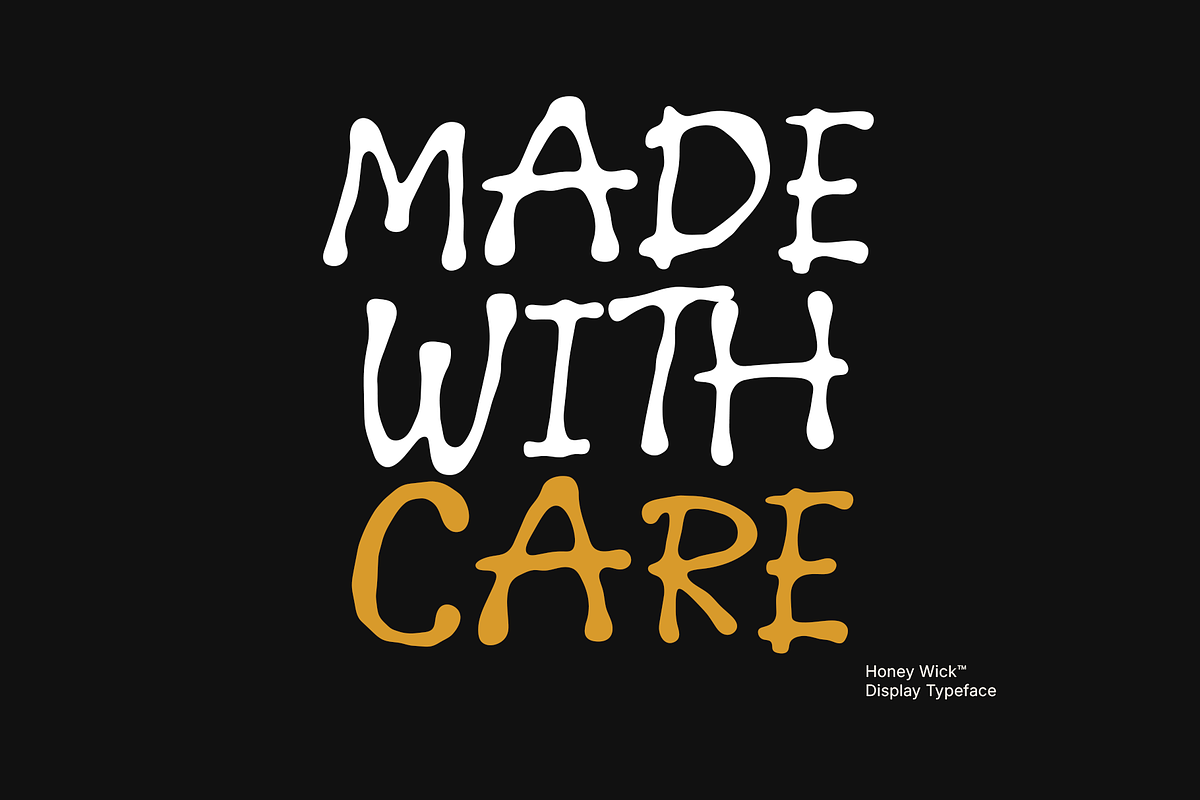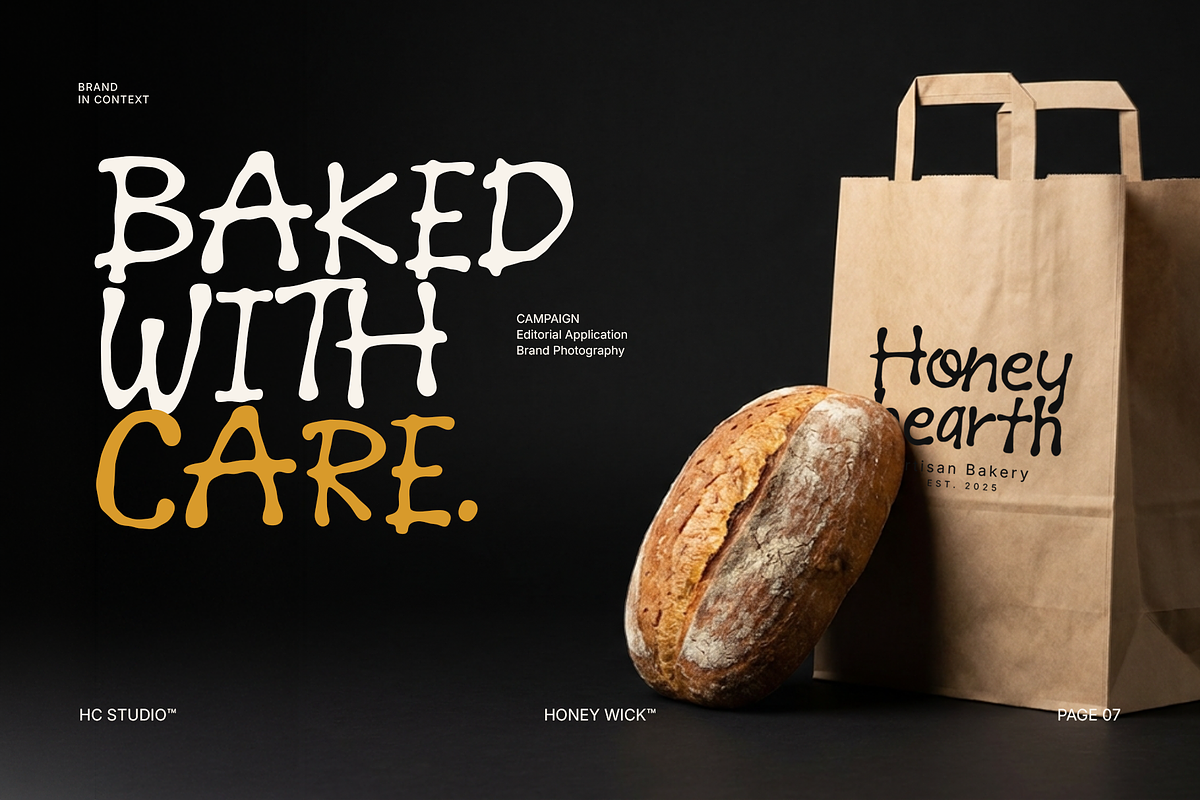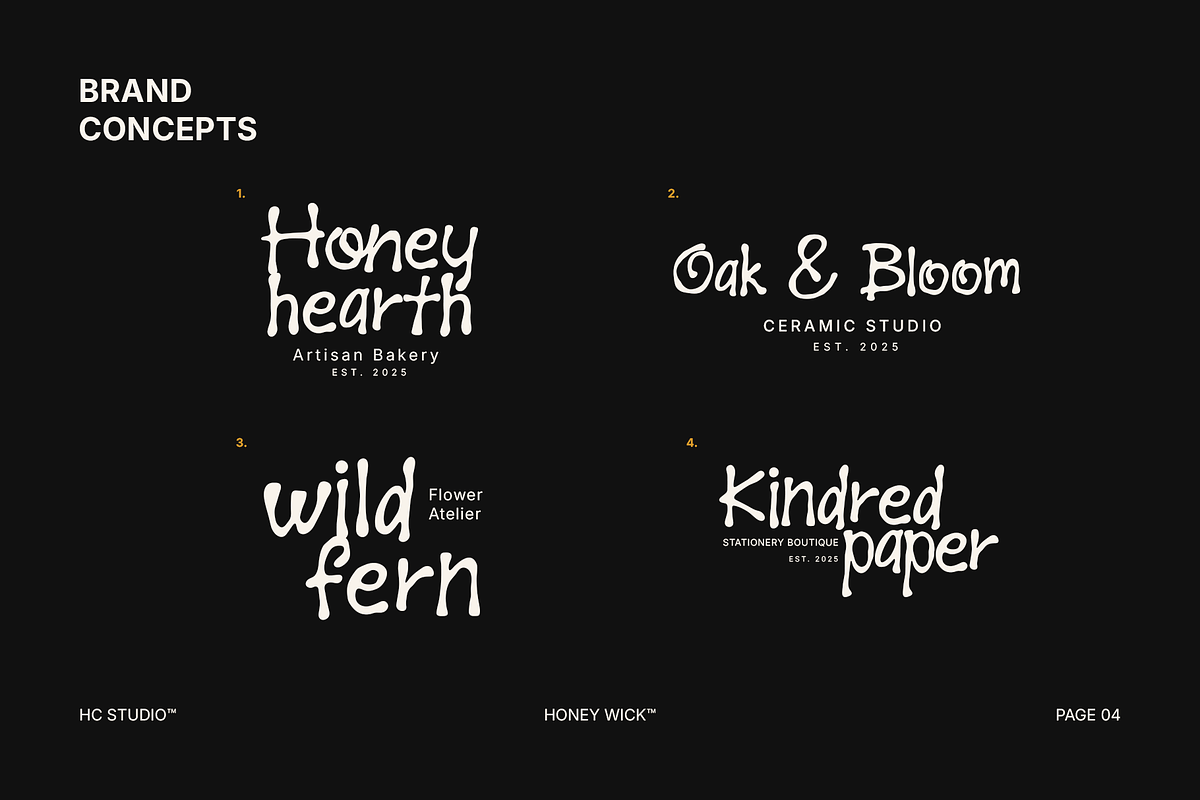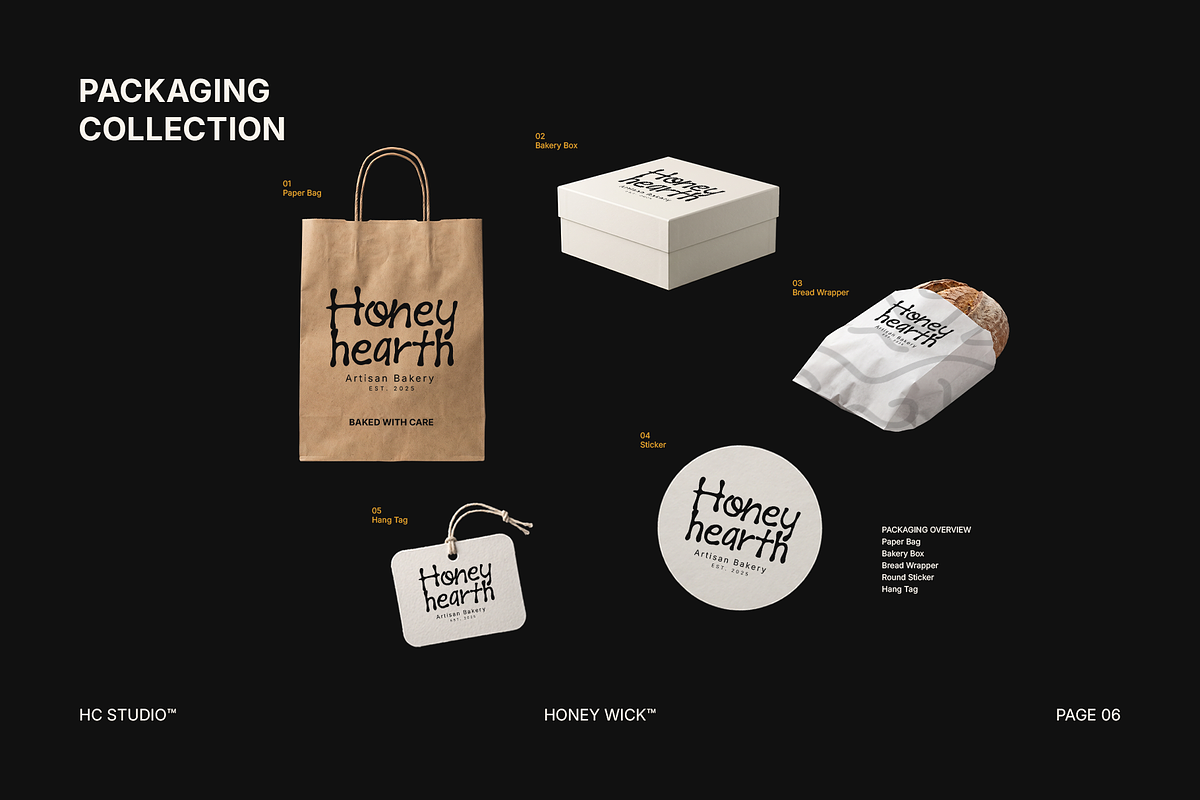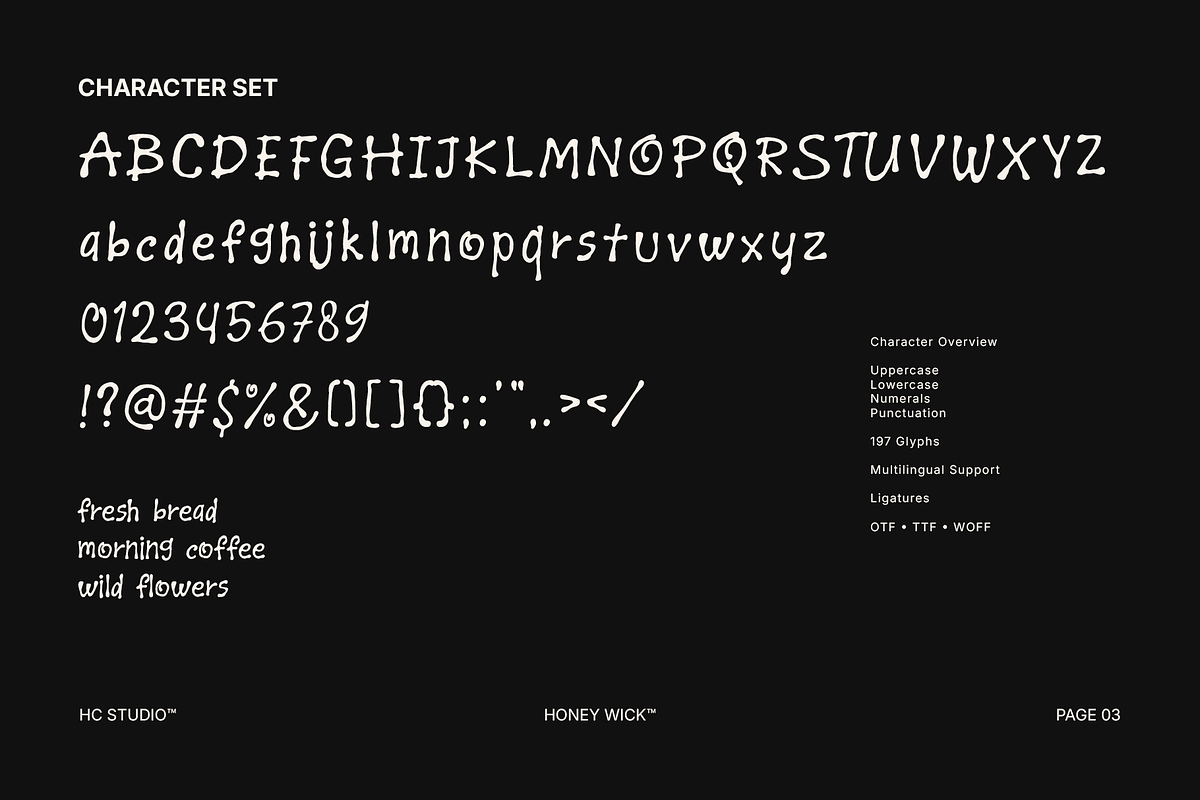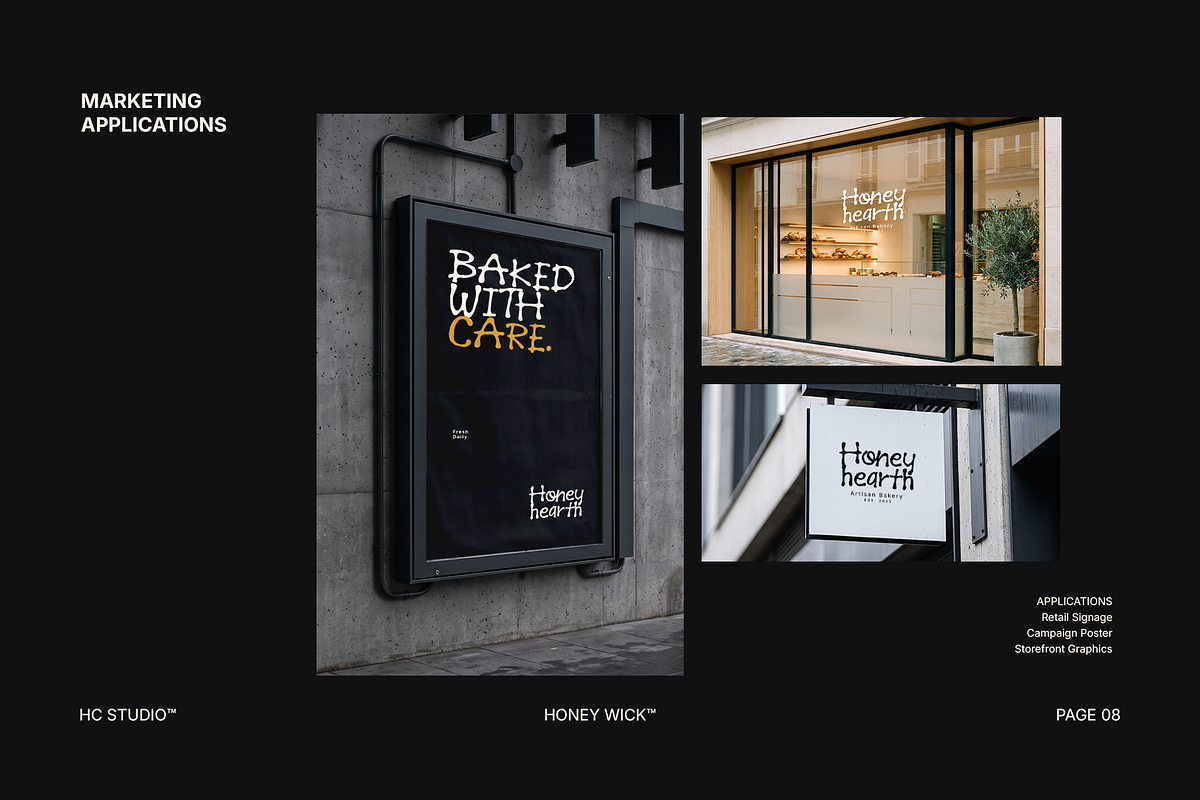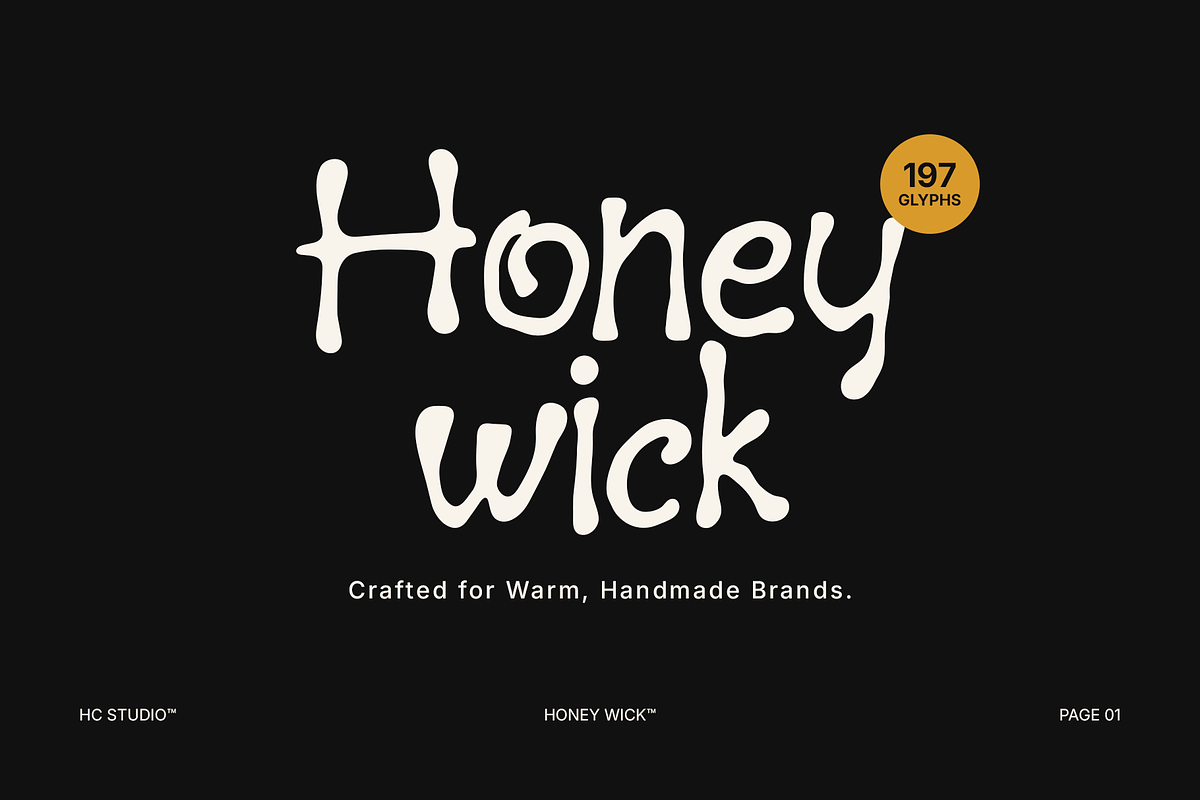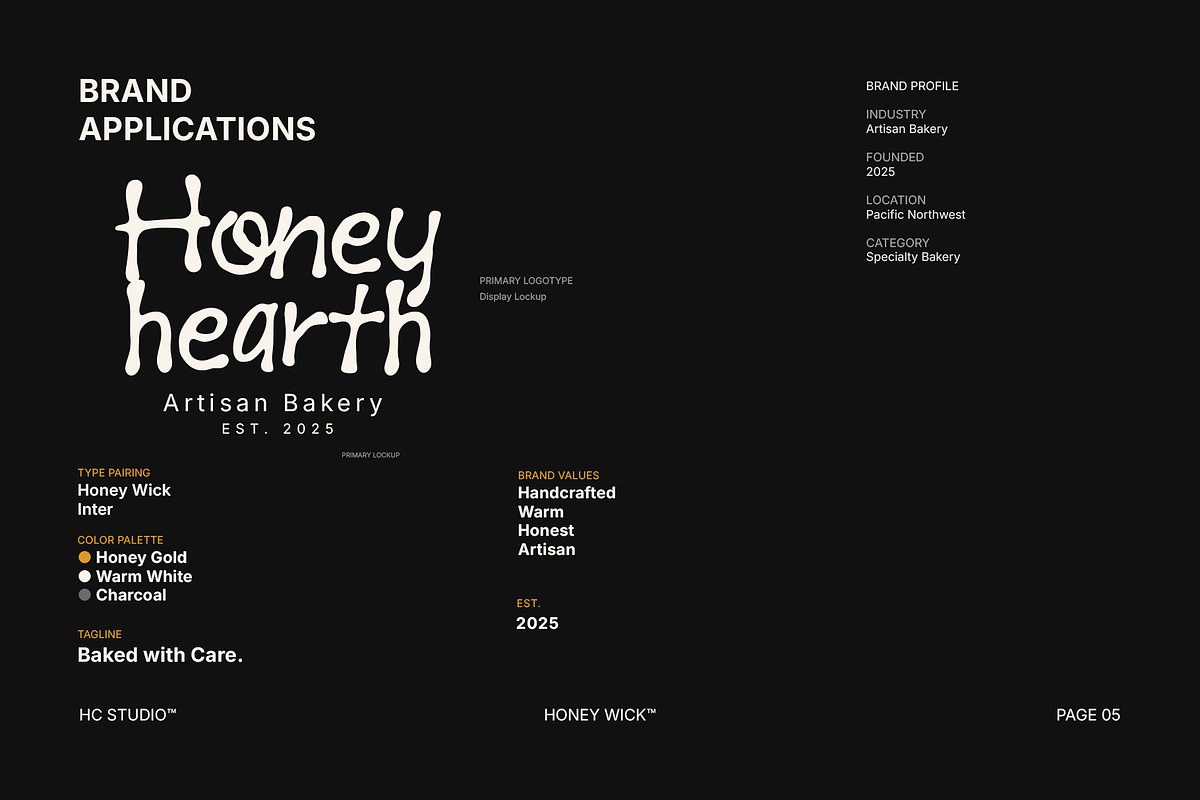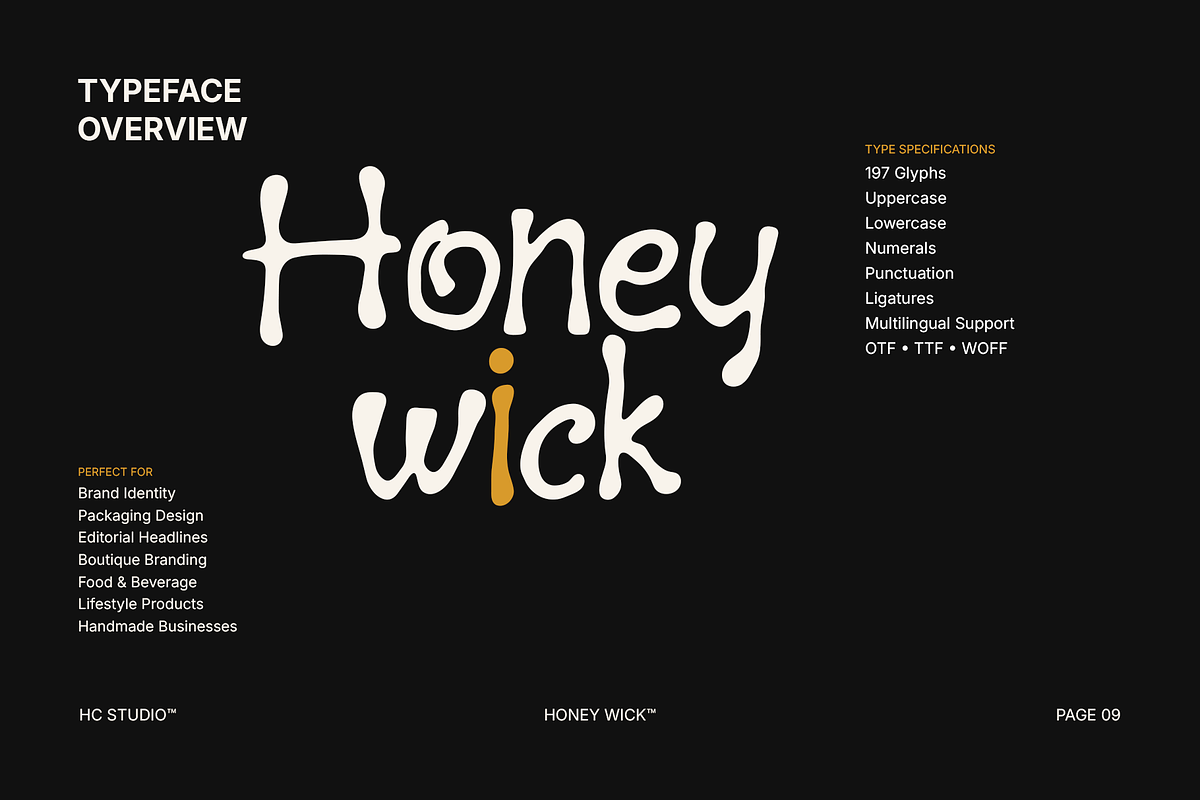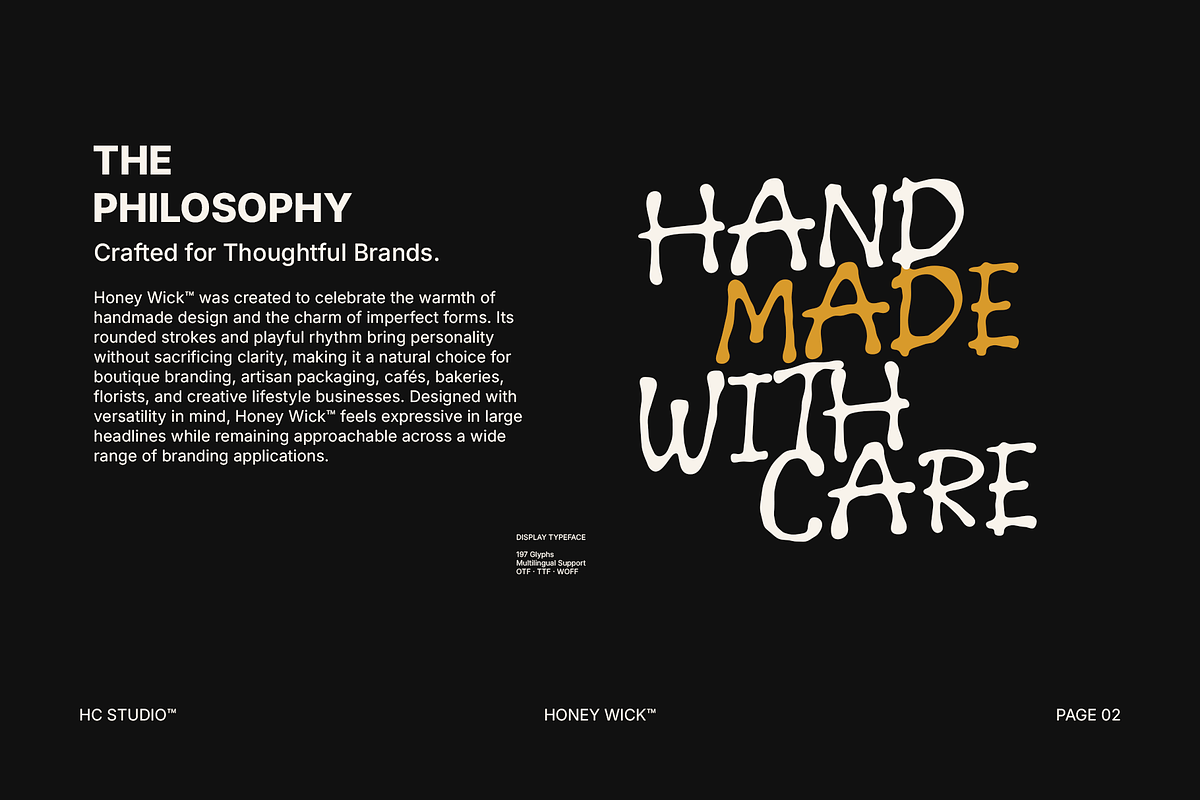
Honey Wick - Handmade Display
Crafted for brands made with care.
Honey Wick is a handcrafted display typeface inspired by artisan craftsmanship, handmade products, and the warmth of independent brands. Designed with rounded organic forms and expressive details, it brings a natural personality to branding without sacrificing clarity.
Its approachable character makes it equally suitable for boutique identities, artisan packaging, cafés, bakeries, florists, lifestyle products, and creative editorial design. Whether used as a logo, headline, or packaging title, Honey Wick adds warmth, authenticity, and memorable visual presence.
Rather than following rigid geometric construction, Honey Wick embraces subtle imperfections that make every word feel more human and inviting.
- Handcrafted Display Typeface
- Brand Identity
- Boutique Branding
- Artisan Packaging
- Bakery Branding
- Café Logos
- Coffee Shops
- Florists
- Handmade Products
- Organic Food Brands
- Lifestyle Products
- Editorial Headlines
- Posters
- Social Media
- Product Labels
Honey Wick™ includes multilingual language support, allowing your branding and editorial projects to communicate naturally across a wide range of Latin-based languages.